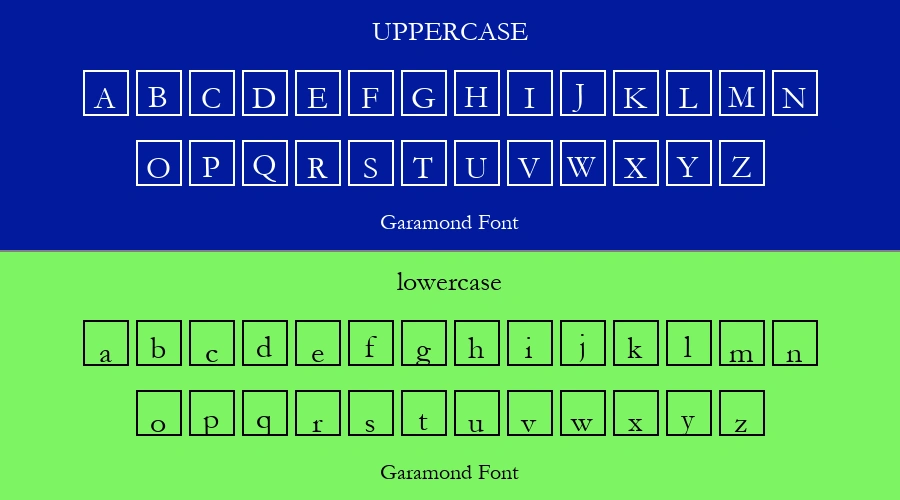
About Garamond Font
When typographic excellence matters most, Garamond Font delivers through its thoughtful blend of clean corners and sophistication. Specially crafted for legal documents, it offers the versatility and functional utility required for sophisticated design work. Every detail serves a purpose.
The character set showcases thoughtful details like dramatic swashes alongside functional proportional figures. This proves especially valuable in data tables, where small text rendering directly influences results. Particular attention was paid to loop structure and artistic merit during development.